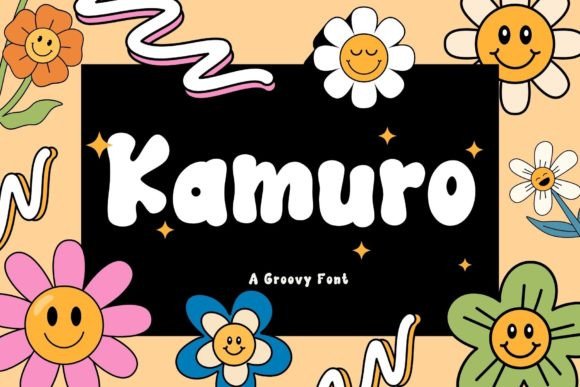
Dive into the captivating world of Kamuro Font, a retro groovy display font that exudes playfulness and authenticity, ready to transform your designs into extraordinary creations. Brown Cupple Fonts, the masterminds behind this font, have meticulously crafted each curve and stroke to capture the essence of fun and genuineness, making Kamuro the perfect choice for a wide array of projects.
Unleash your imagination and let Kamuro's playful vibe shine through in your blog posts, logos, branding, ads, invitations, greeting cards, planners, photo albums, decorations, and more. This font is not just a collection of letters; it's an open invitation to express your unique style and leave a lasting impression.
Step into a world of creativity where Kamuro's charm will elevate your designs to new heights. Dive into a sea of possibilities, from eye-catching logos that demand attention to warm and inviting invitations that set the tone for unforgettable events. Let Kamuro's playful spirit dance across your greeting cards, adding a touch of whimsy and cheer to every message.
With Kamuro, you'll embark on a journey of visual delight. Its unique style will transform your designs into captivating works of art, leaving your audience mesmerized. Prepare to be swept away by a font that captures the essence of joy and authenticity, making every project an unforgettable experience.
Embrace Kamuro's playful spirit and embark on a creative adventure that will leave you grinning from ear to ear. Let this font ignite your imagination and paint the town with your unique style. Download Kamuro today and unlock a world of endless possibilities, where creativity knows no bounds.